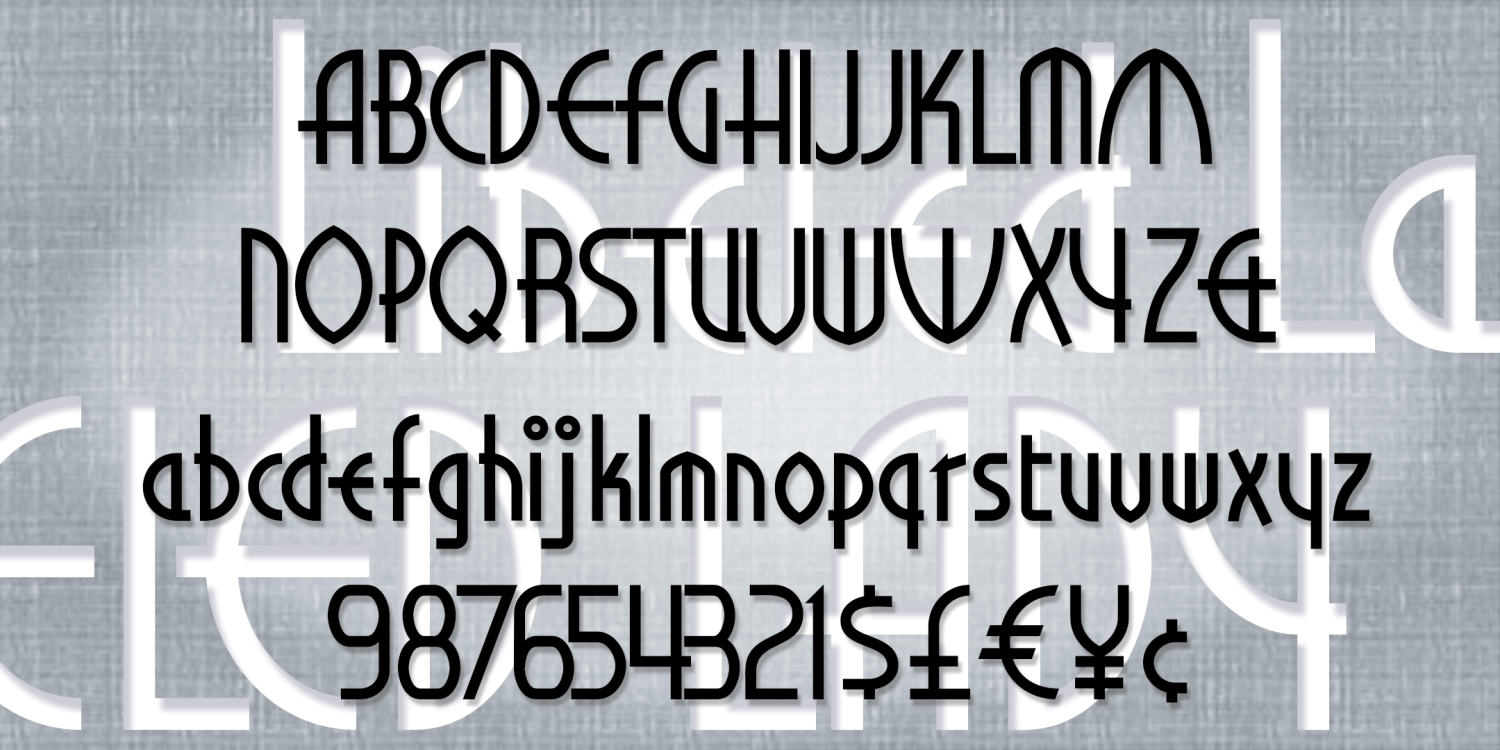
Libeled Lady
LIBELED LADY was inspired by the hand-lettered titles of the 1936 film of the same name, (1936) starring Jean Harlow, directed by Jack Connolly and art directed by Cedric Gibbons , William A. Horning, and Edwin B. Willis.
The opening titles are a fine example of Art Deco lettering, appropriate to the style and tone of the film. Somewhat regularized and fleshed out, the font remains faithful to the original. Dan X. Solo lamented the scarcity of period Art Deco typefaces; consider this a reconstruction of one that never existed.